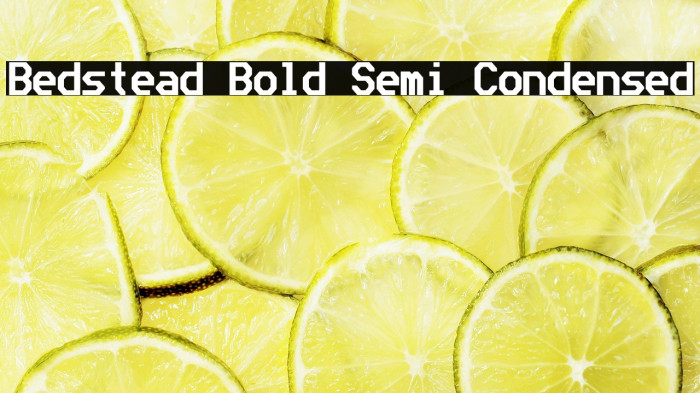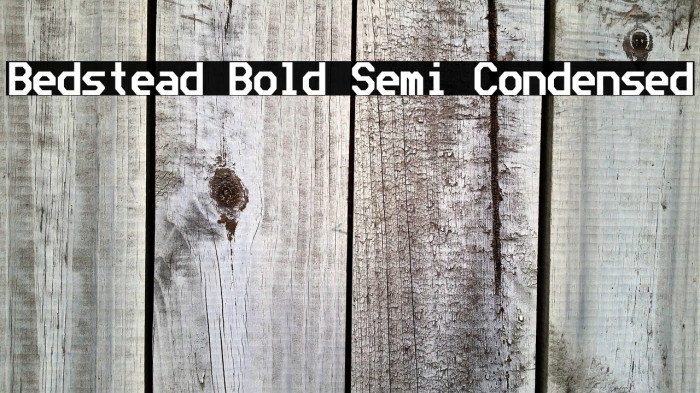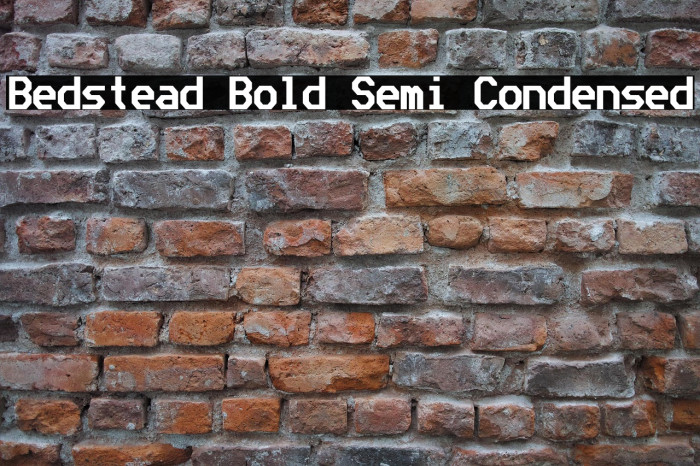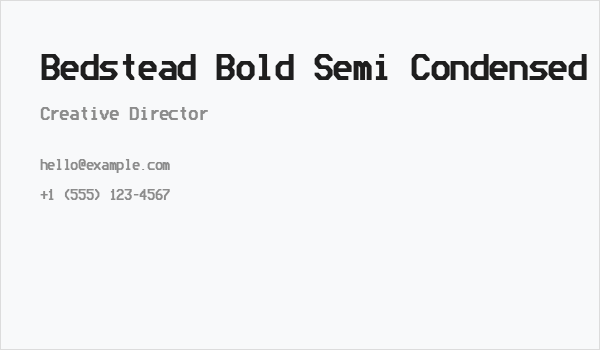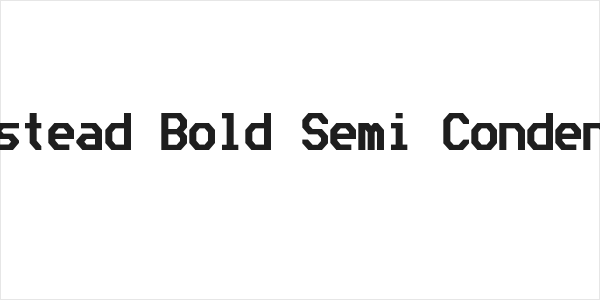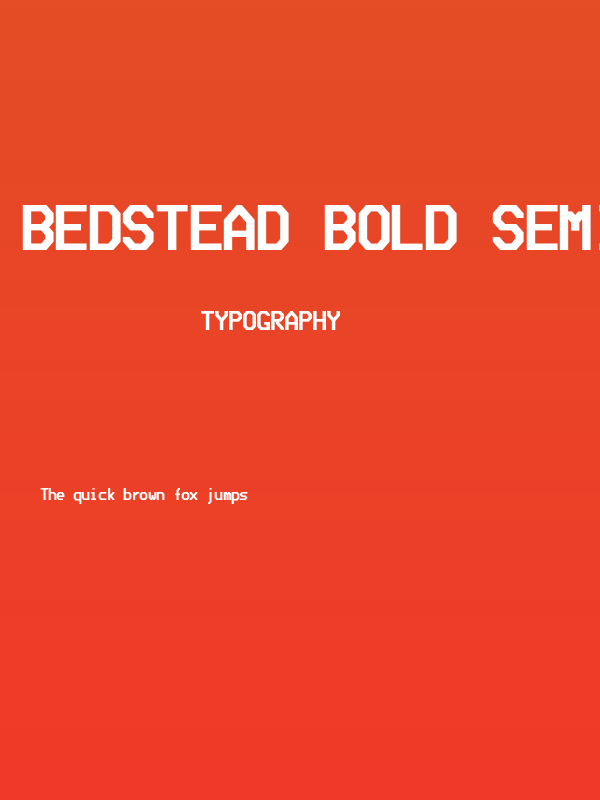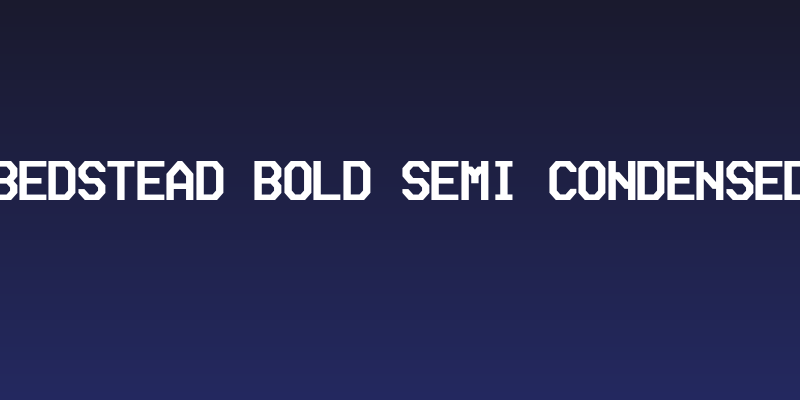
Bedstead Bold Semi Condensed Font
Bedstead Bold Semi Condensed Description
This font features a bold and semi-condensed style with a geometric and angular design. The characters are constructed with straight lines and sharp corners, giving it a modern and industrial feel. The uppercase and lowercase letters maintain a consistent height, while the numerals and special characters align seamlessly with the overall aesthetic. The font's bold weight ensures strong visibility, making it suitable for impactful headlines and attention-grabbing designs. Its semi-condensed width allows for efficient use of space without compromising readability.
| Proposed Projects | Ideal for branding, posters, signage, and any project requiring a modern, industrial look. |